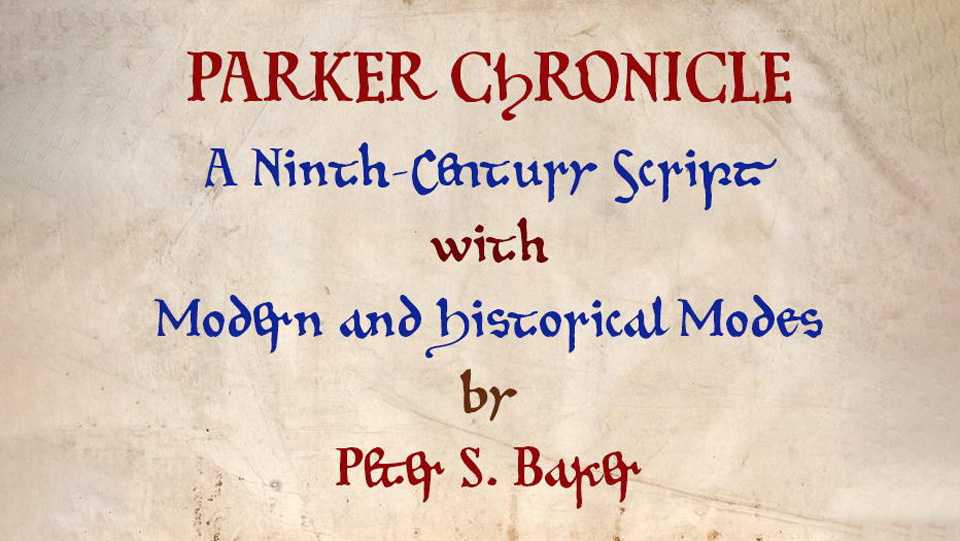
Download Parker Chronicle font, a script typeface based on the hand of the first scribe of the oldest manuscript of the Anglo-Saxon Chronicle, Corpus Christi College, Cambridge, MS 173.